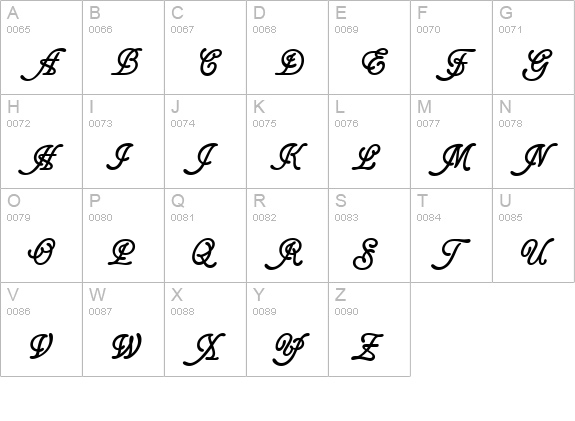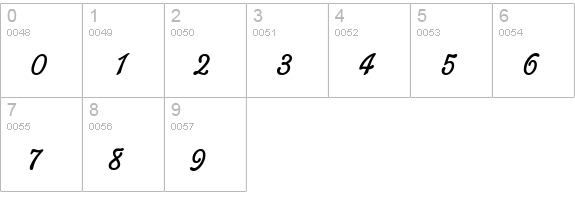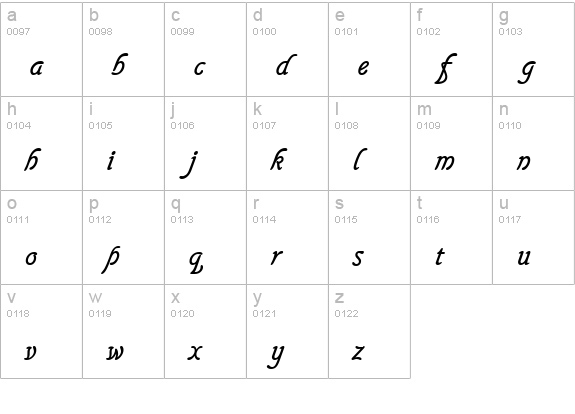
GainsboroughSoft Font Details
GainsboroughSoft is a beautifully crafted font that exudes elegance and sophistication. Its flowing curves and intricate details make it perfect for adding a touch of refinement to your designs. Whether you're working on a wedding invitation, branding project, or website, GainsboroughSoft will elevate your work to the next level. The best part? GainsboroughSoft is available for free download at FontsMarket.com. This means you can easily access this stunning font without breaking the bank. Don't miss out on the opportunity to enhance your projects with this exquisite typeface. Download GainsboroughSoft today and add a touch of luxury to your designs.